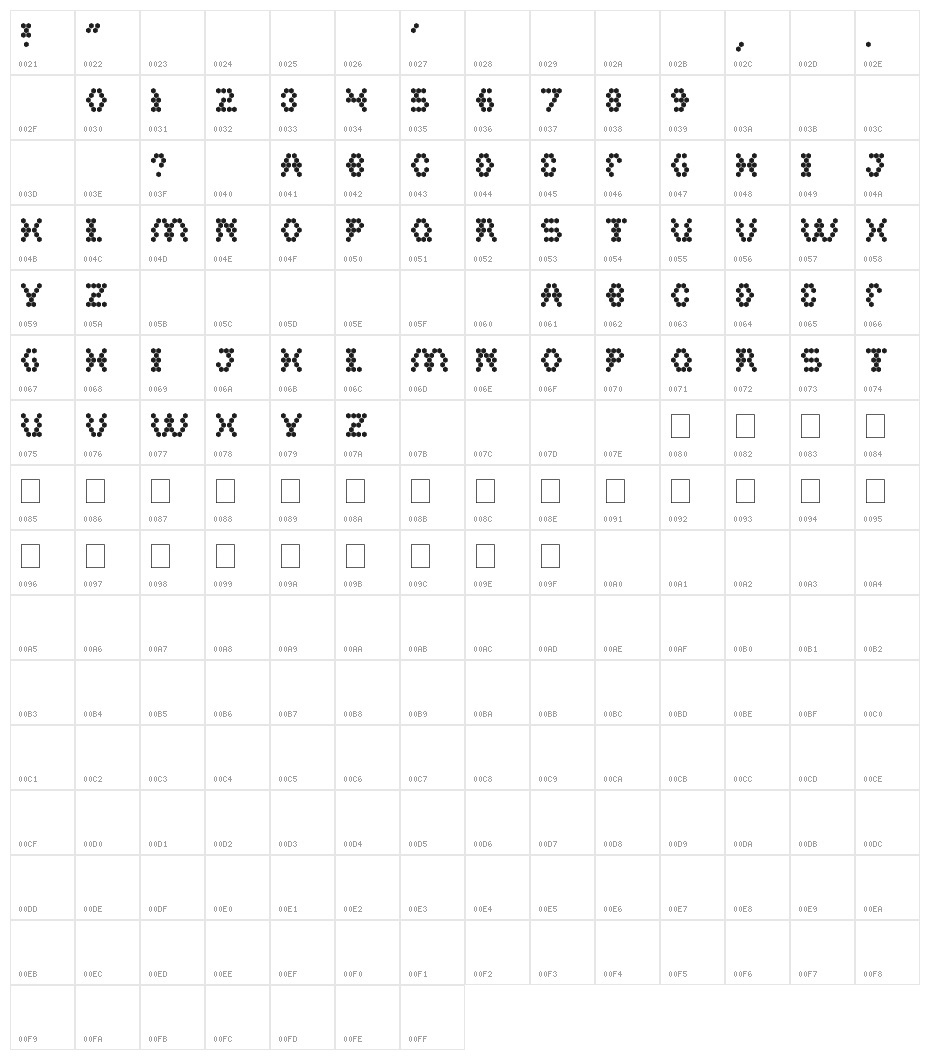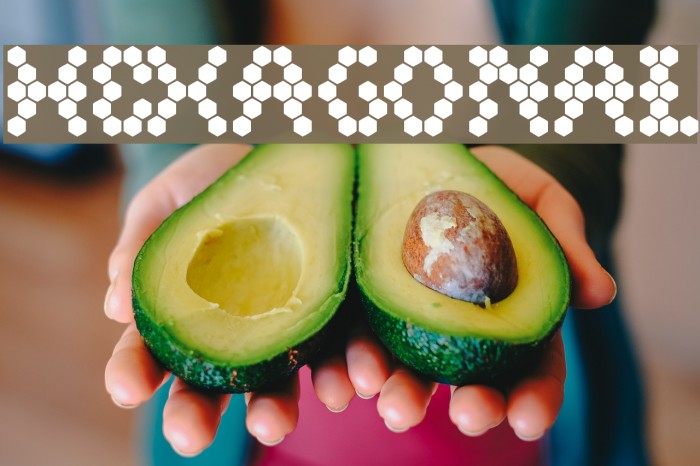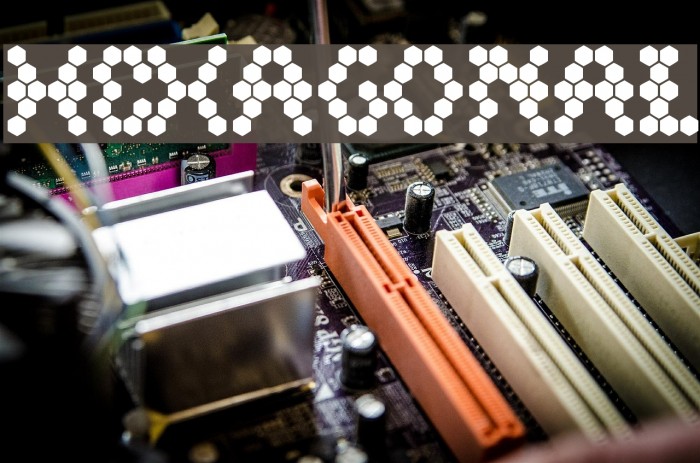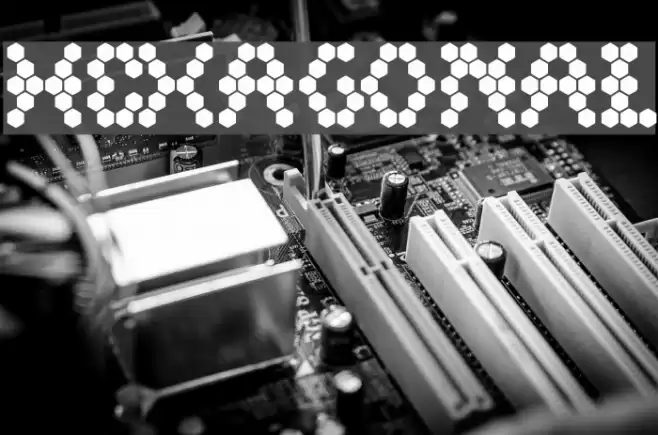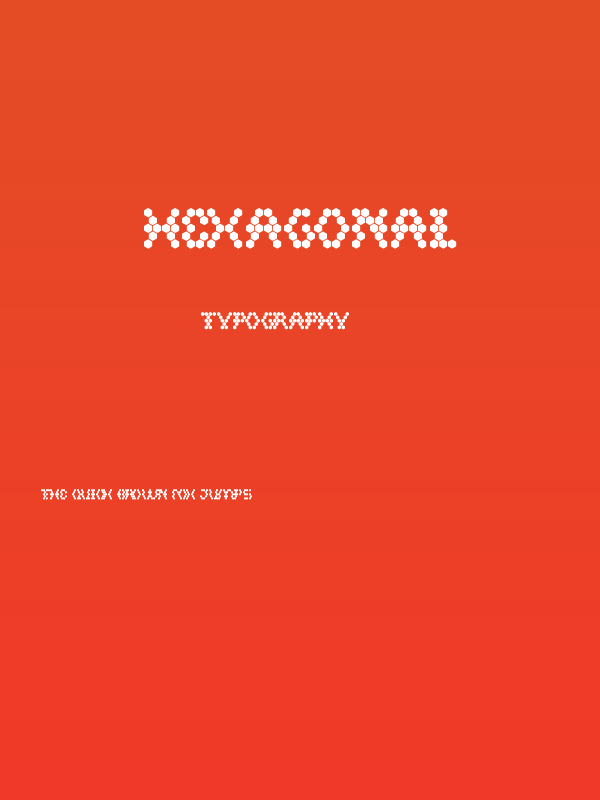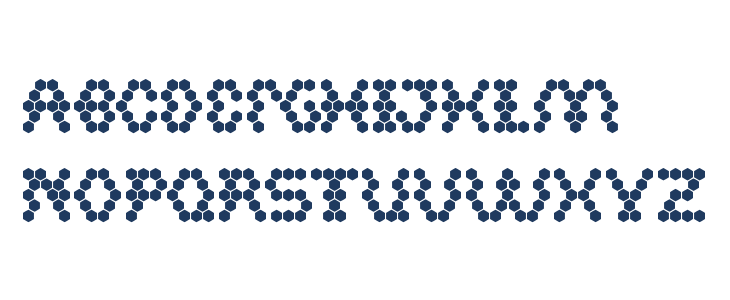
HEXAGONAL Font
HEXAGONAL Description
This font features a unique hexagonal design, where each character is composed of a series of small hexagons arranged to form the shape of letters and numbers. The geometric pattern gives it a modern and futuristic appearance, making it stand out in any design. The uppercase and lowercase letters maintain a consistent style, with each character clearly distinguishable despite the intricate pattern. The numbers follow the same hexagonal theme, ensuring uniformity across all characters. This font is ideal for projects that require a bold and distinctive look, such as technology-themed designs or modern art installations.
| Proposed Projects | Ideal for technology-themed designs, modern art projects, and innovative branding. |